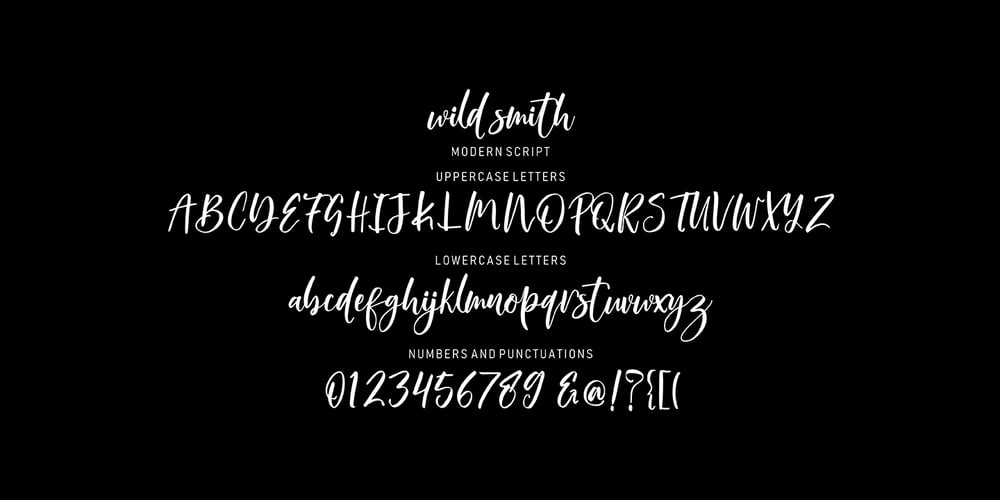
Wild Smith Font Family was designed by Muhammad Fajar and published by Lucky Type. Wild Smith contains 1 styles and family package options. Wild Smith Script is a new modern script font with an irregular baseline. Trendy and feminine style.Wild Smith looks lovely on wedding invitations, thank you cards, quotes, greeting cards, logos, business cards and more. Perfect for using in ink or watercolour. Including initial and terminal letters, alternates, ligatures and multiple language support. To enable the OpenType Stylistic alternates, you need a program that supports OpenType features such as Adobe Illustrator CS, Adobe Indesign & CorelDraw X6-X7, Microsoft Word 2010 or later versions. There are additional ways to access alternates/swashes, using Character Map (Windows), Nexus Font (Windows), Font Book (Mac) or a software program such as PopChar (for Windows and Mac). How to access all alternative characters: https://www.youtube.com/watch?v=Go9vacoYmBw https://www.youtube.com/watch?v=XzwjMkbB-wQ https://www.youtube.com/watch?v=x1A_ilsBsGs https://www.youtube.com/watch?v=xFlMwARHusY Thanks so much for looking and please let me know if you have any questions.